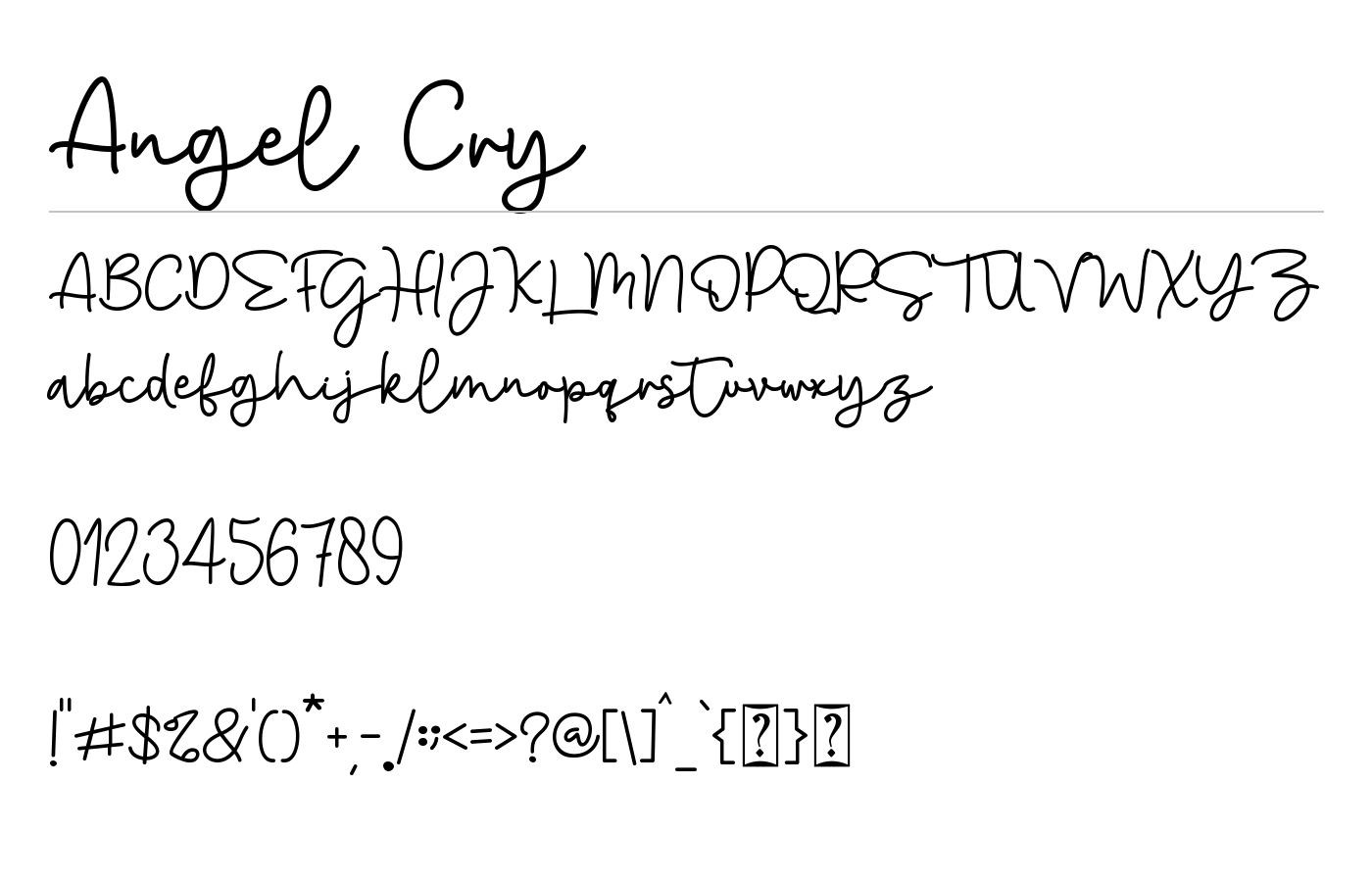
Angel Cry is a delicate, handwritten script font with a playful and casual feel, featuring thin, smooth strokes and a slightly condensed structure. Its airy, quirky letterforms and consistent light weight make it ideal for creative projects like invitations, branding, and personal notes that seek a friendly and approachable touch. This font works well in designs that want to convey warmth, charm, and individuality.
Angel Cry Font
About Angel Cry Font
| Font family | Angel Cry Font |
| Designer | Stefani Letter |